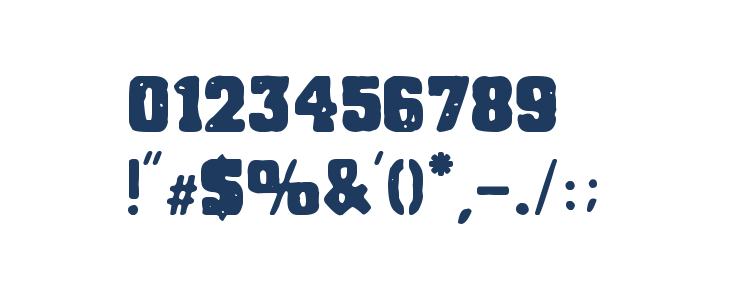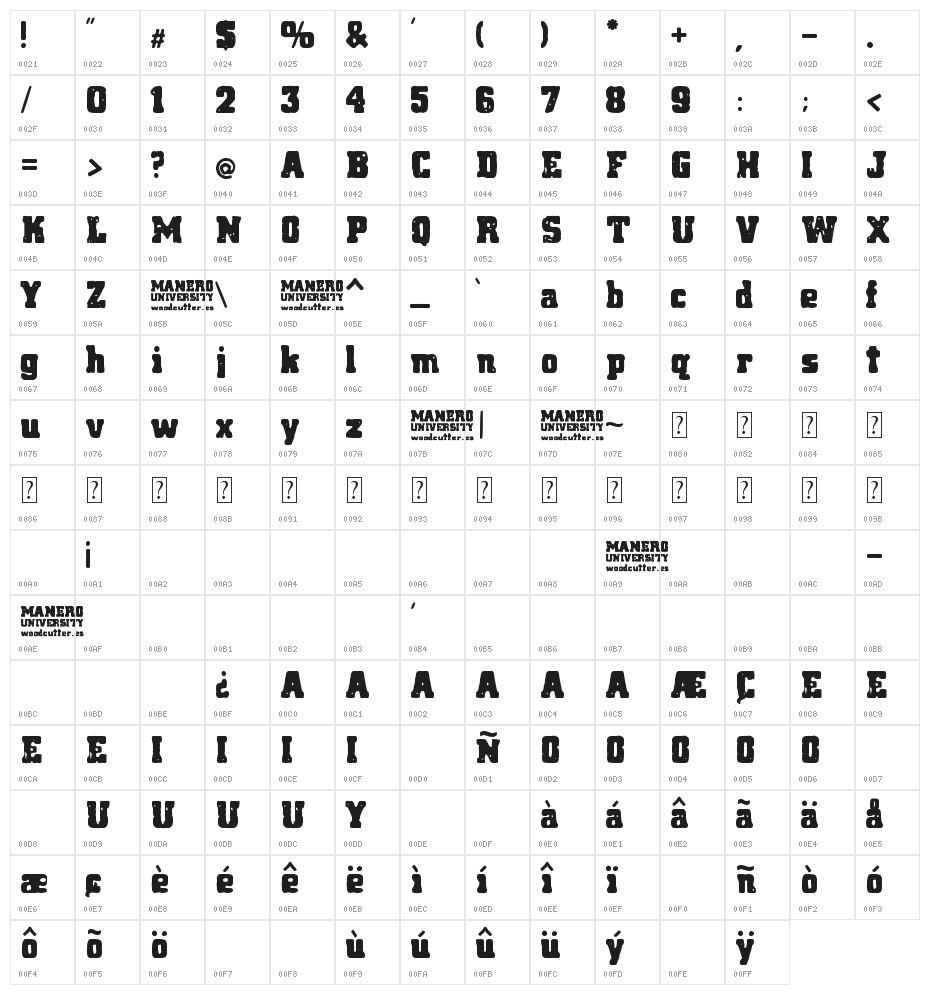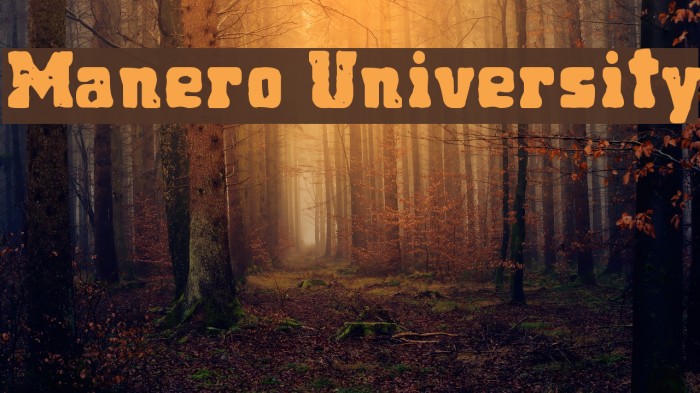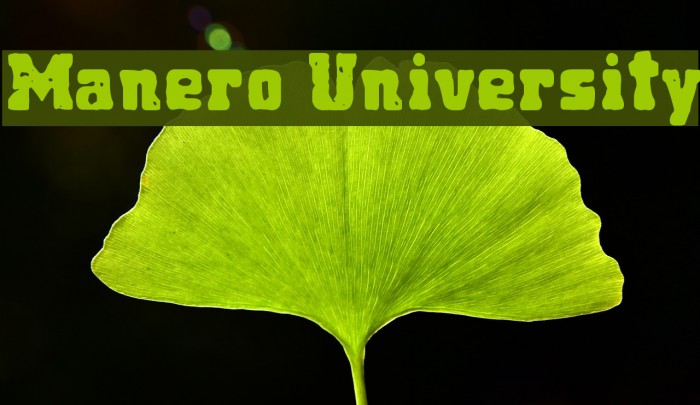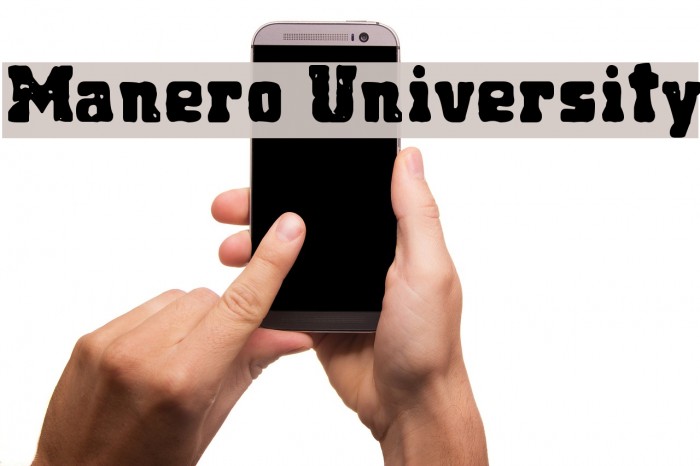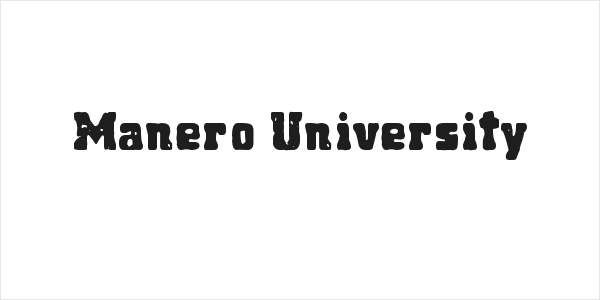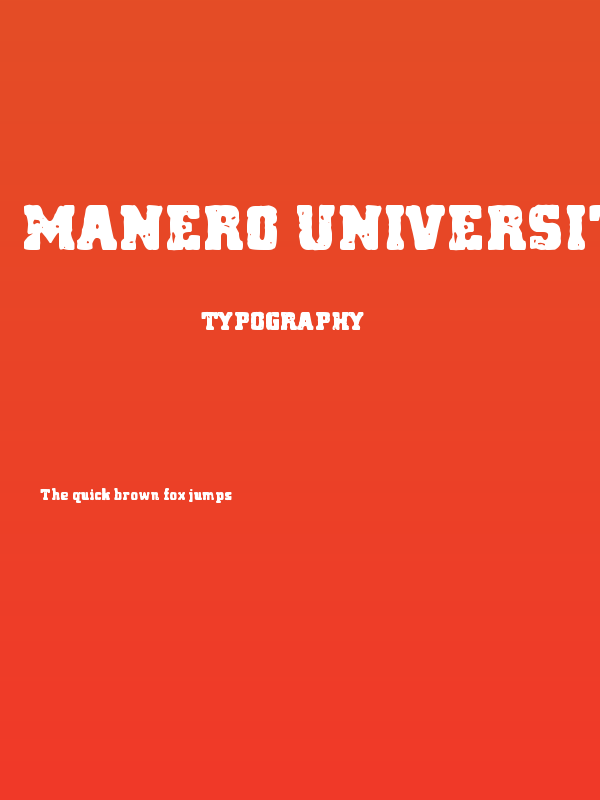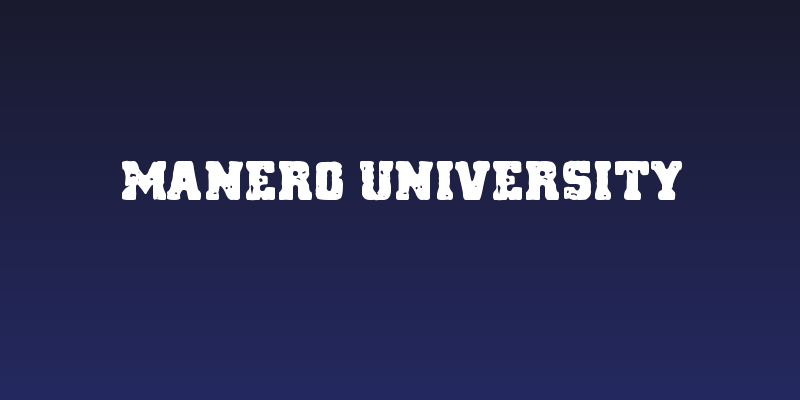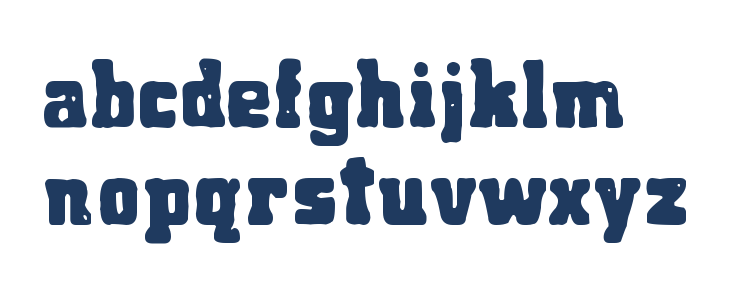
Manero University Font
Manero University Description
This font features a bold, rugged style with a distressed texture that gives it a vintage, worn appearance. The characters are thick and heavy, with irregular edges that add to its rustic charm. The uppercase and lowercase letters maintain a consistent weight, creating a cohesive look. The numbers and special characters follow the same design, ensuring uniformity across all glyphs. This font's unique style makes it stand out, perfect for projects that require a bold statement.
| Proposed Projects | Ideal for posters, logos, branding, and any design that needs a bold, vintage touch. |